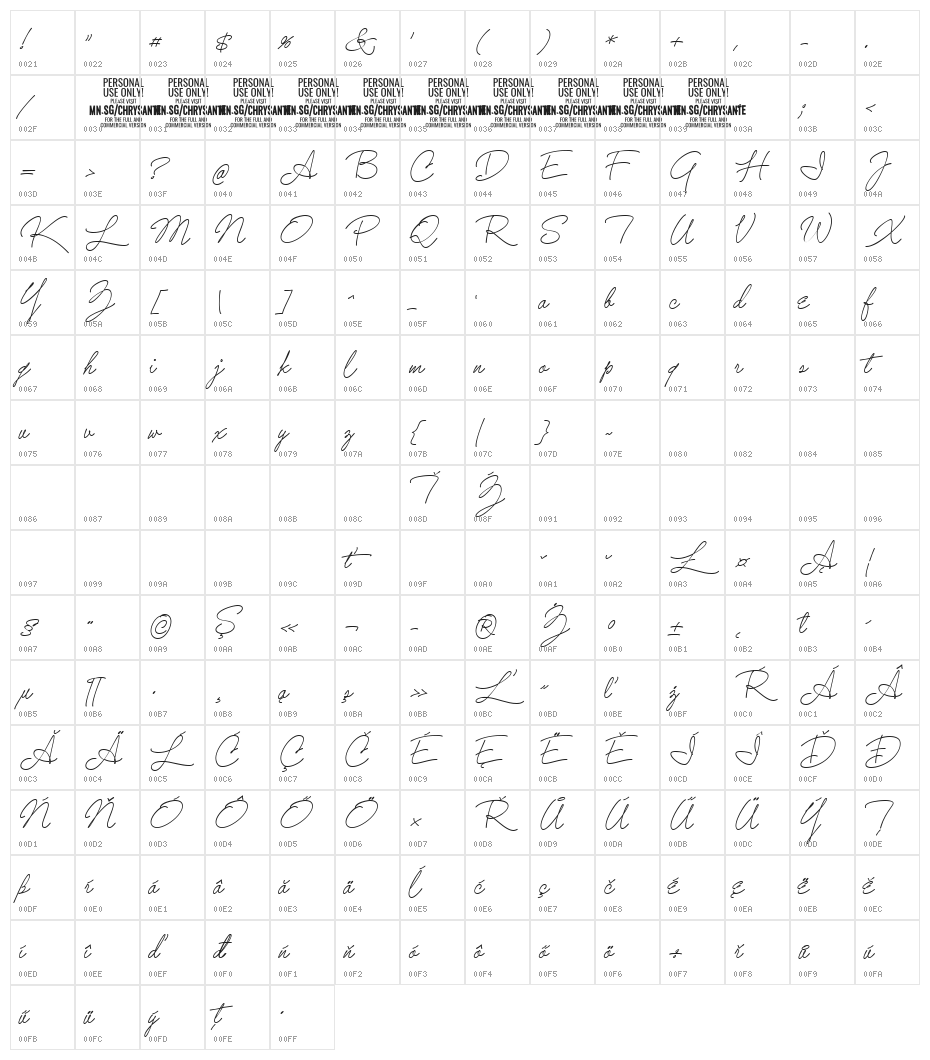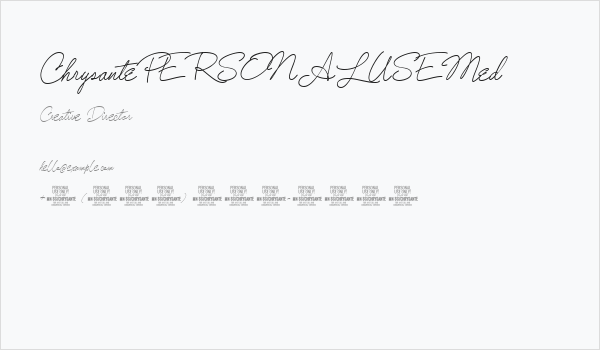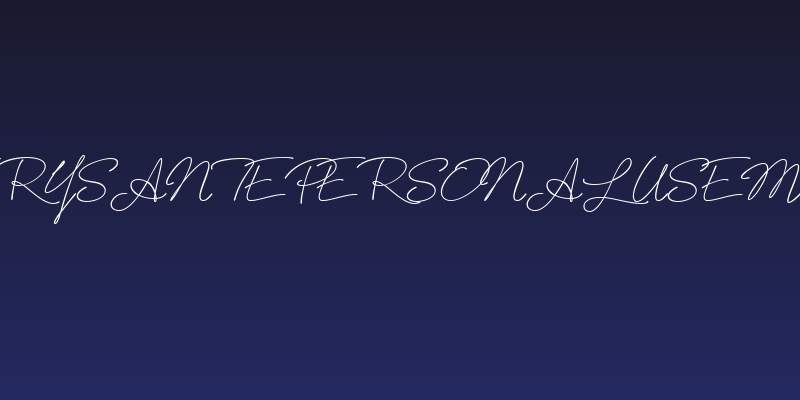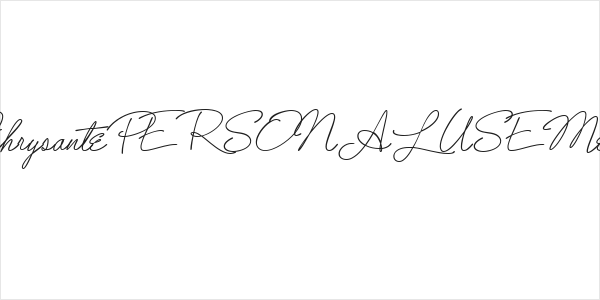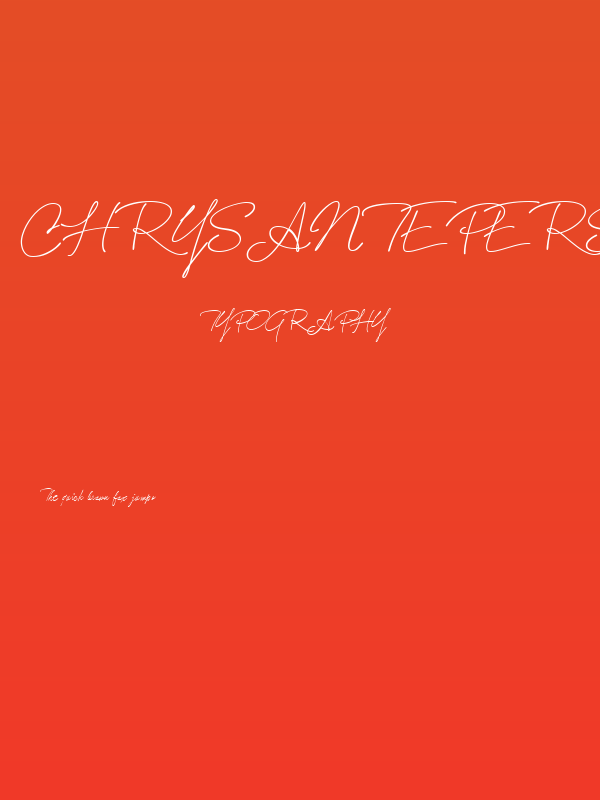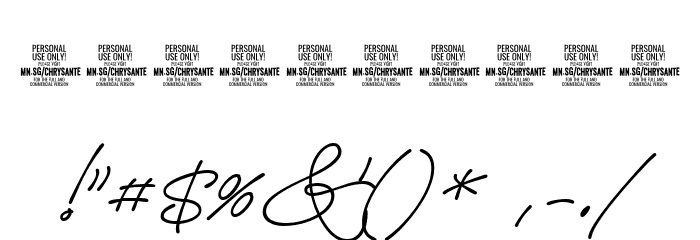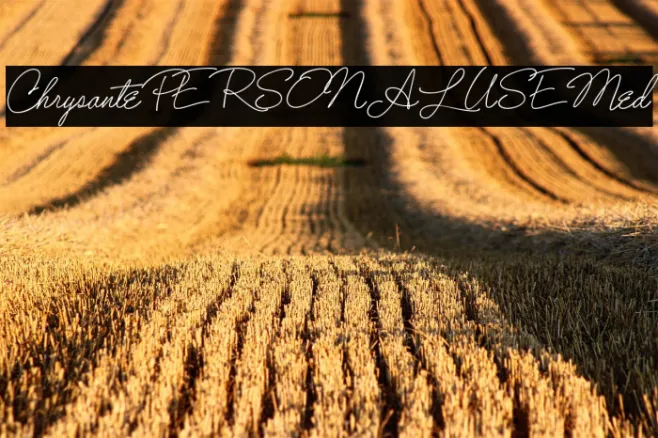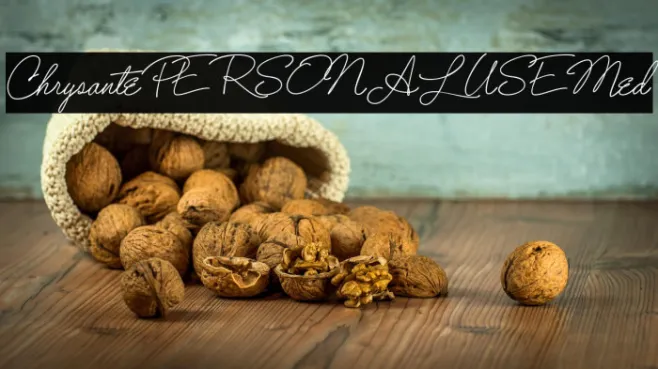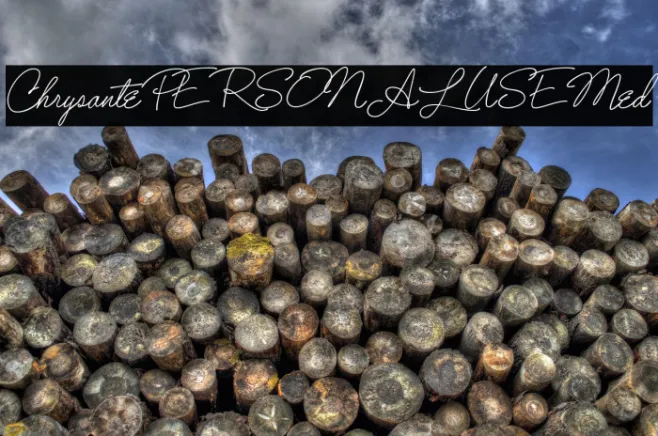
ChrysantePERSONALUSEMed Font
ChrysantePERSONALUSEMed Description
This font exudes a sophisticated and elegant handwritten style, characterized by its flowing and interconnected letterforms. The uppercase letters are gracefully elongated, while the lowercase letters maintain a consistent fluidity, creating a harmonious balance. The script is reminiscent of classic calligraphy, with a modern twist that adds a touch of personality and flair. The special characters are seamlessly integrated, maintaining the overall aesthetic. This font is perfect for projects that require a personal and artistic touch, such as invitations, greeting cards, and branding materials.
| Use Case | Logos, Invitations, Artistic projects |
| Proposed Projects | Ideal for invitations, greeting cards, branding materials, and artistic projects. |